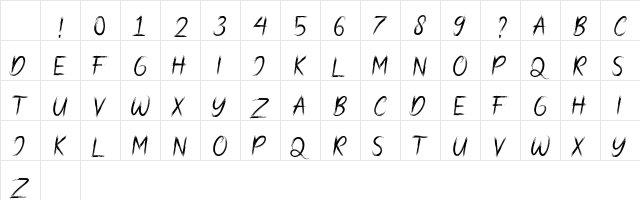
Bad Hunter Brush flows with the natural rhythm of handwritten lettering, making it ideal for designs that call for warmth and personal expression.
Font Pairing: Combine Bad Hunter Brush with a simple geometric sans for maximum contrast - the tension between flowing curves and clean structure is a classic typographic pairing.
Pro Tip: Use Bad Hunter Brush for short runs of text - names, titles, or taglines. Extended body copy in script faces tires the eye quickly.